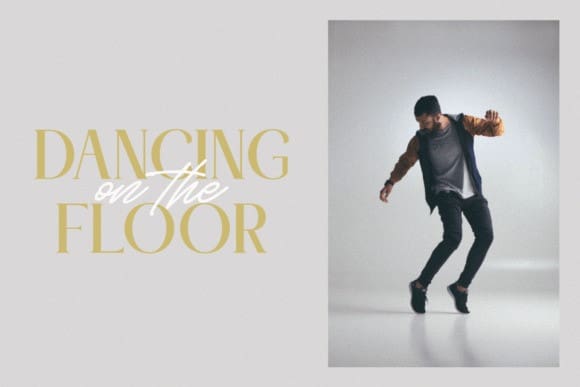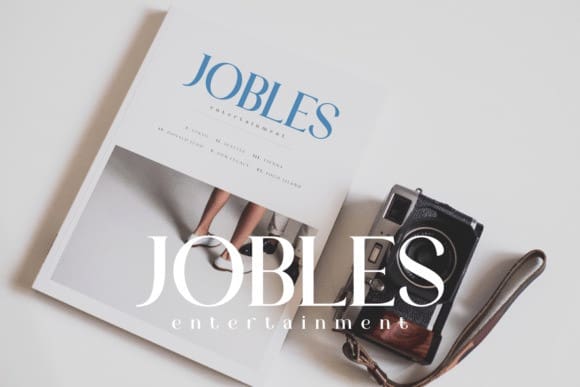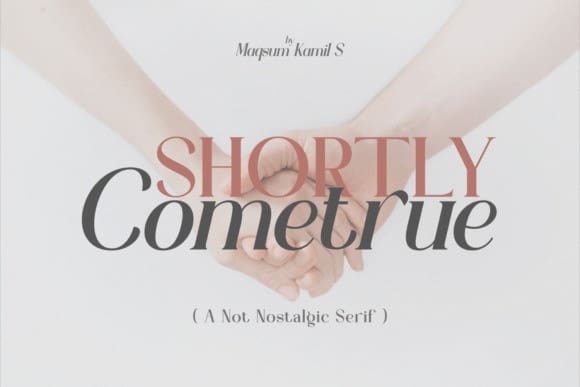
Shortly Cometrue Font
Shortly Cometrue Font is a serif font with a classy style and modern look, which makes it very versatile. Use it to create somehting spectacular everytime!